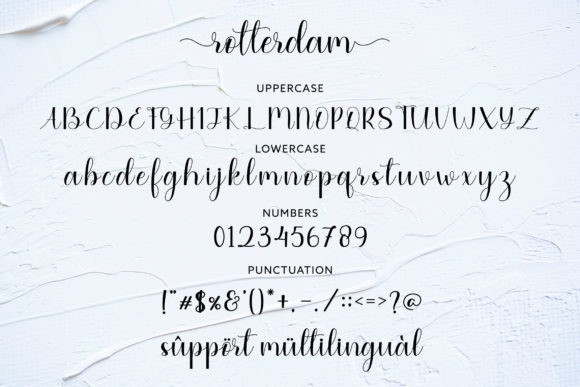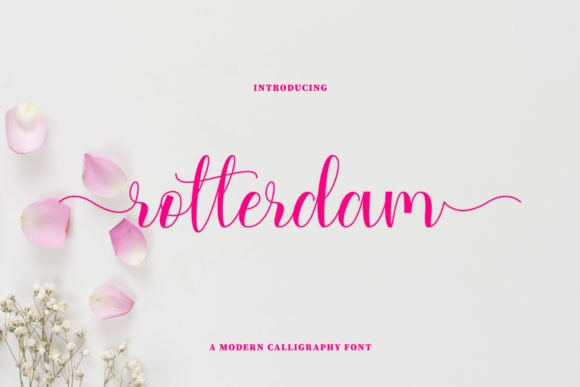
Rotterdam Font
Rotterdam Script Font is a romantic and sweet calligraphy typeface with characters that dance along the baseline. It will add a luxury spark to any design project that you wish to create! This font is PUA encoded which means you can access all of the amazing glyphs and ligatures with ease!